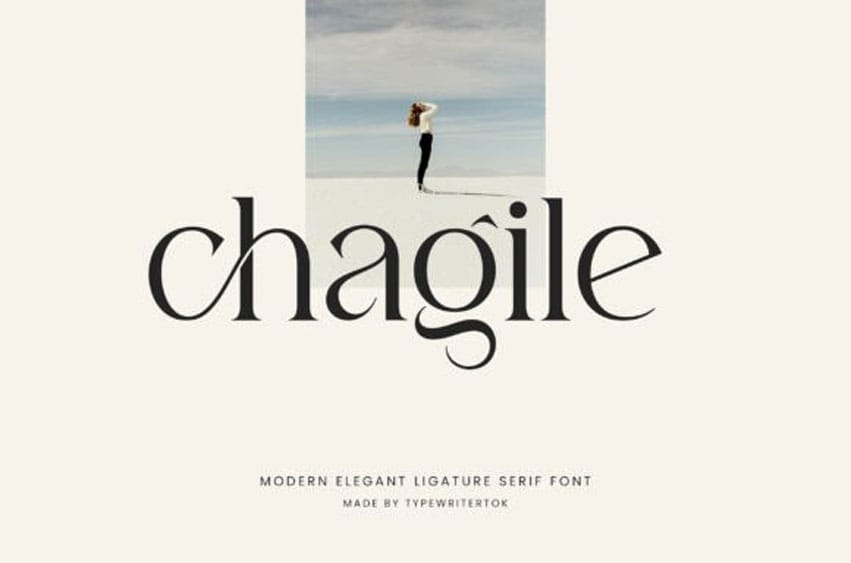
Chagile Font is a sophisticated serif font that blends timeless elegance with stunning ligature details. Its graceful letterforms and refined style make it perfect for designs that demand beauty, class, and a touch of luxury.
This font is suitable for any graphic design, such as branding materials, product packaging, branding and logos, wedding stationery, etc.